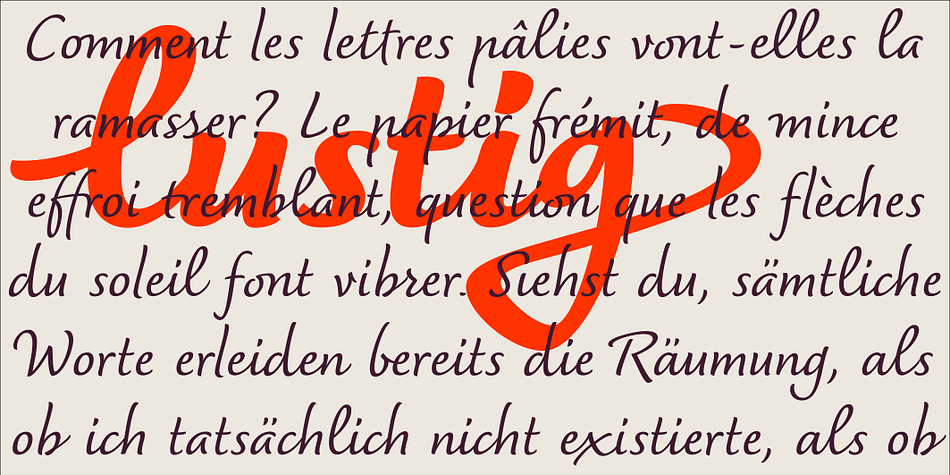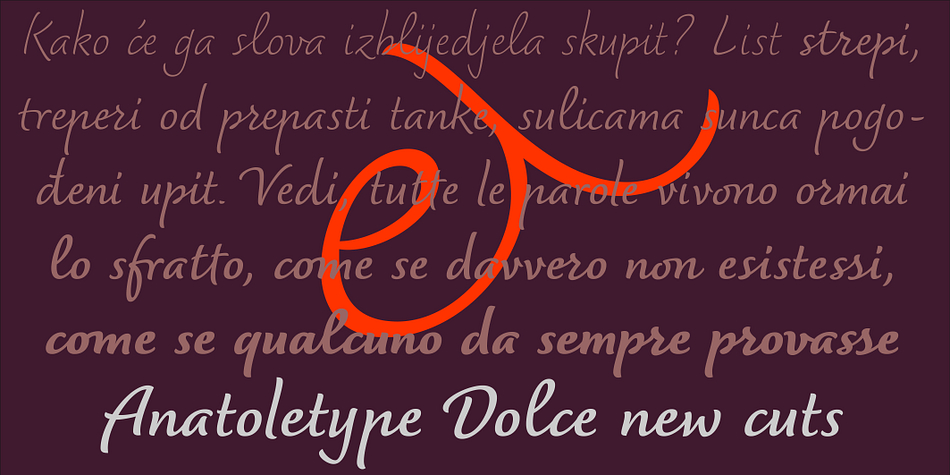
Designed by Elena Albertoni, Dolce is a hand drawn and script font family. This typeface has five styles and was published by Anatoletype.
Dolce is the next step in Elena Albertoni’s ongoing exploration of handwritten letterforms that started with her typefaces Dyna and Scritta. It is an attempt to arrive at a more naturally flowing type of handwriting, striking a balance between the orderly and the informal, while taking a critical look at the possibilities and limits of OpenType.
Dolce uses OpenType functionality to achieve a strong sense of spontaneity.
Because the uppercase letters of Dolce are lively calligraphic initials, they should be used only in combination with lowercase, and not in all-caps setting; to make it easier for the user, Dolce includes a special OpenType feature that automatically substitutes initials with small caps when words are completely set in capitals. The small caps set is calmer, fitting nicely with the rest of the typeface.
Dolce comes with support for Western & Central European languages, small caps, alternates and ligatures.
In 2005 Dolce received the “Certificate of Excellence in Type Design” award from the Type Directors Club (TDC) of New York.